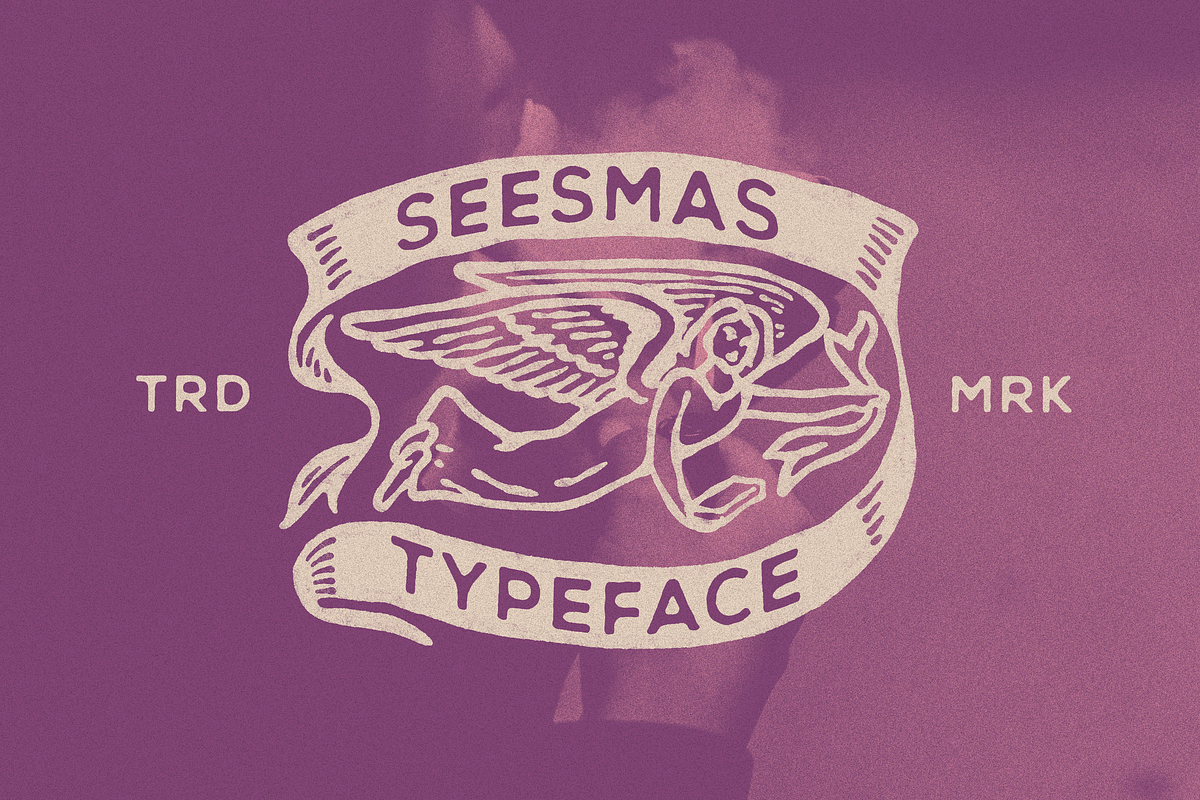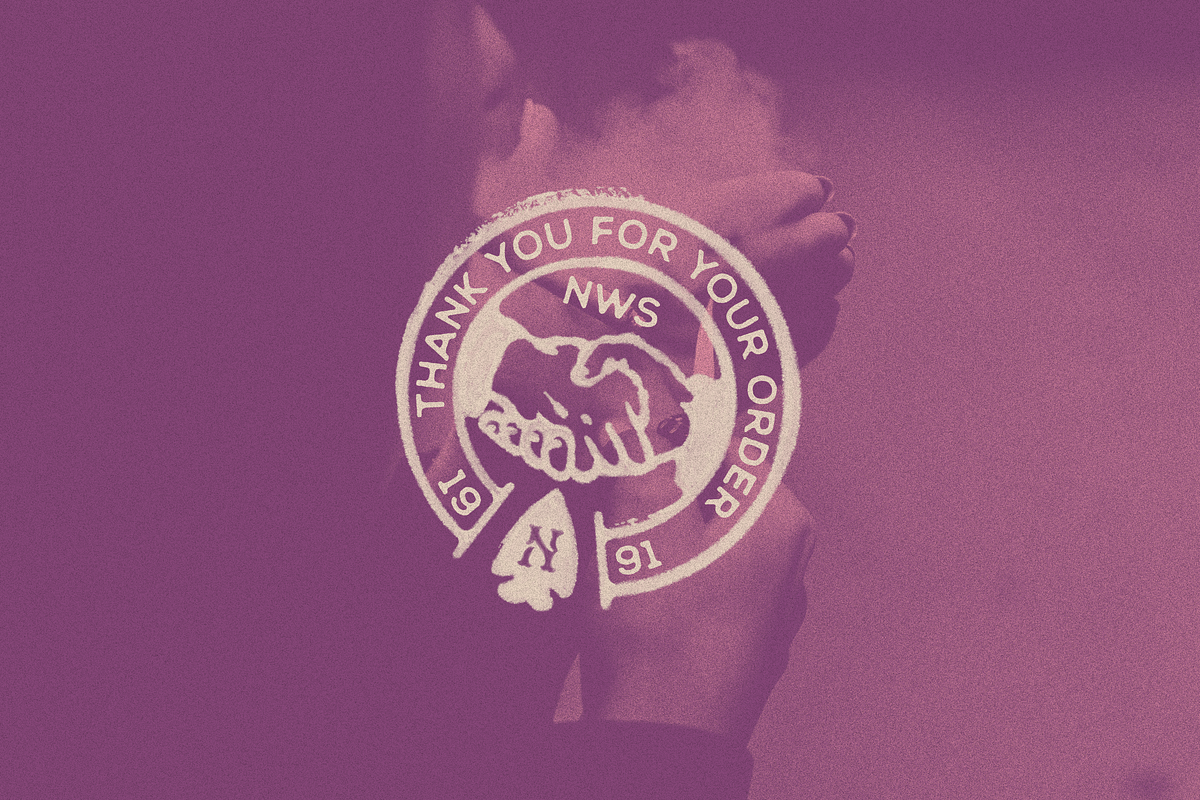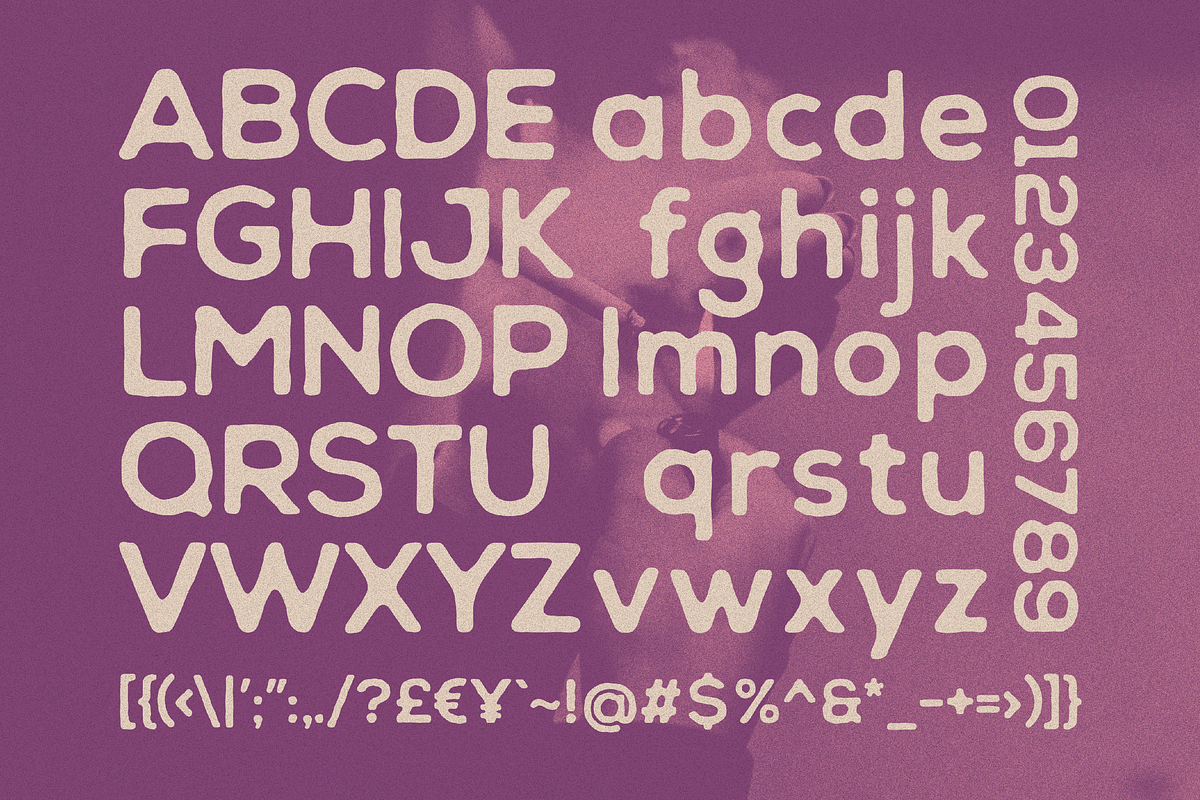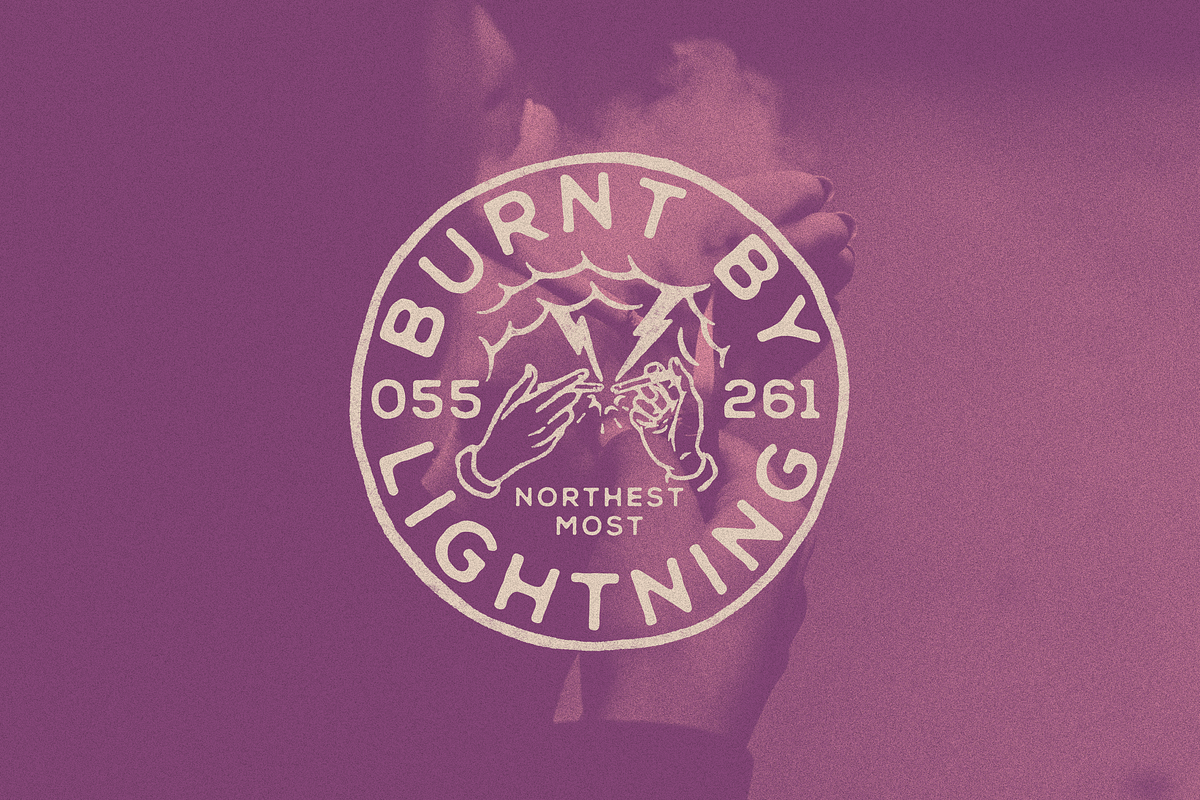
SEESMAS DISPLAY TYPEFACE
INTRODUCING
SEESMAS TYPEFACE. Is a font inspired by American vintage fonts. Very fit and easy to make your awesome product, create label design, logo design, badge design, t-shirt design, posters, greeting cards, letterheads or anything looks like vintage and hand drawn vibes. Also you will get some random illustrations and some editable badge designs. Hope you like it!